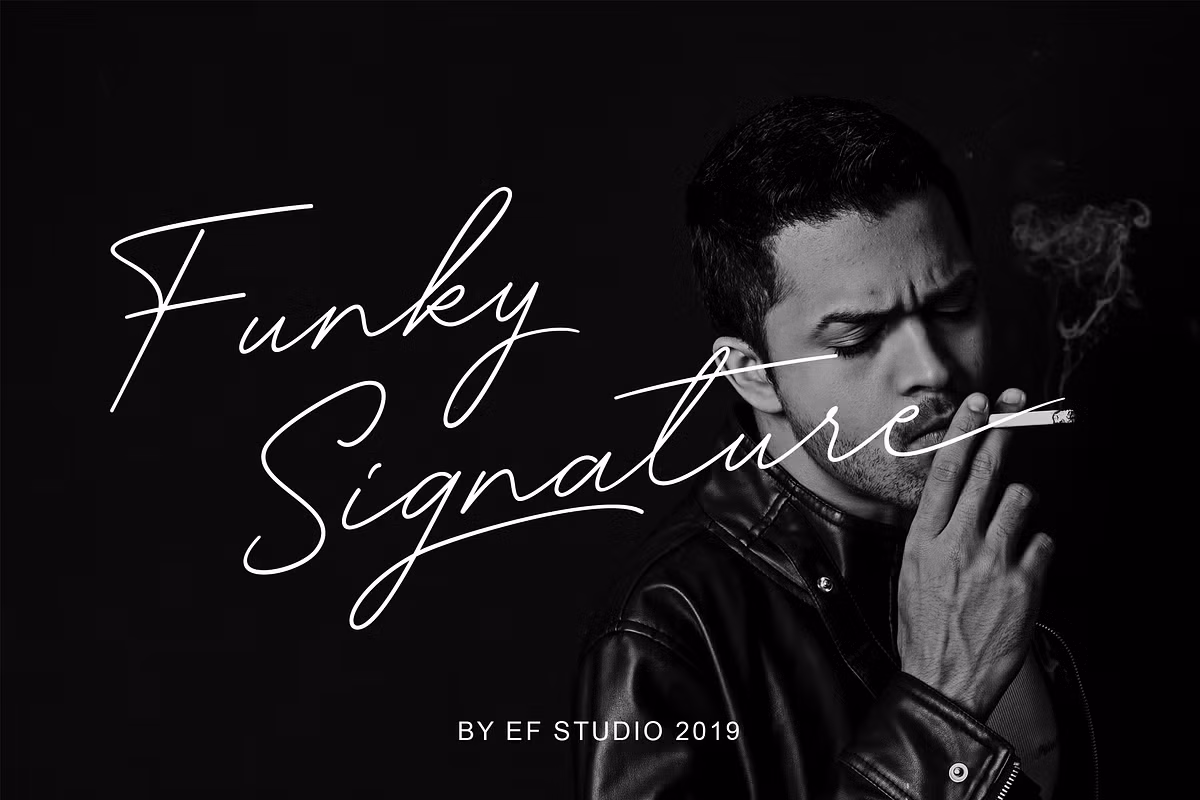
Funky Signature - Funky Fonts Free Download
Funky Signature - Funky Fonts Free Download is a playful and bold script typeface that adds a fun, artistic flair to your designs. Perfect for logos, posters, branding, and social media graphics, this font brings a unique, hand-drawn style that stands out with its quirky letterforms and dynamic energy. Whether you're creating designs for a youthful audience or a creative project, Funky Signature adds personality and flair to any design.